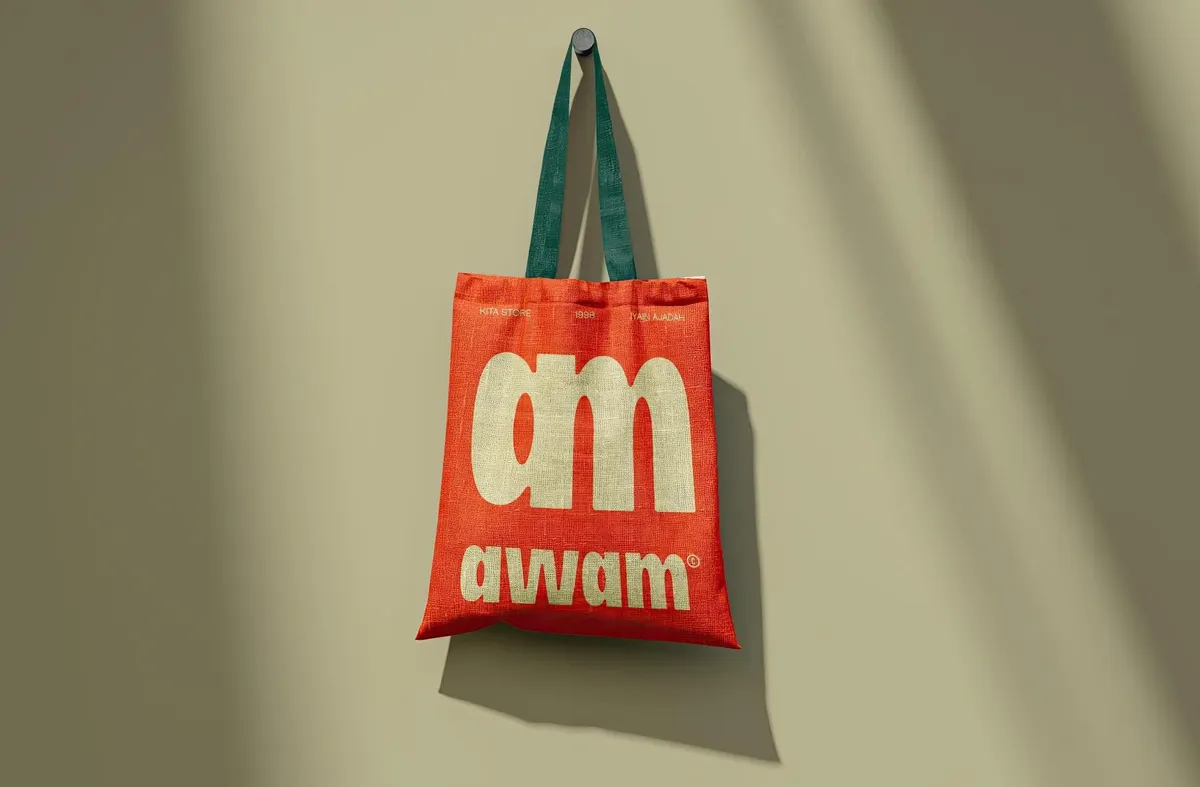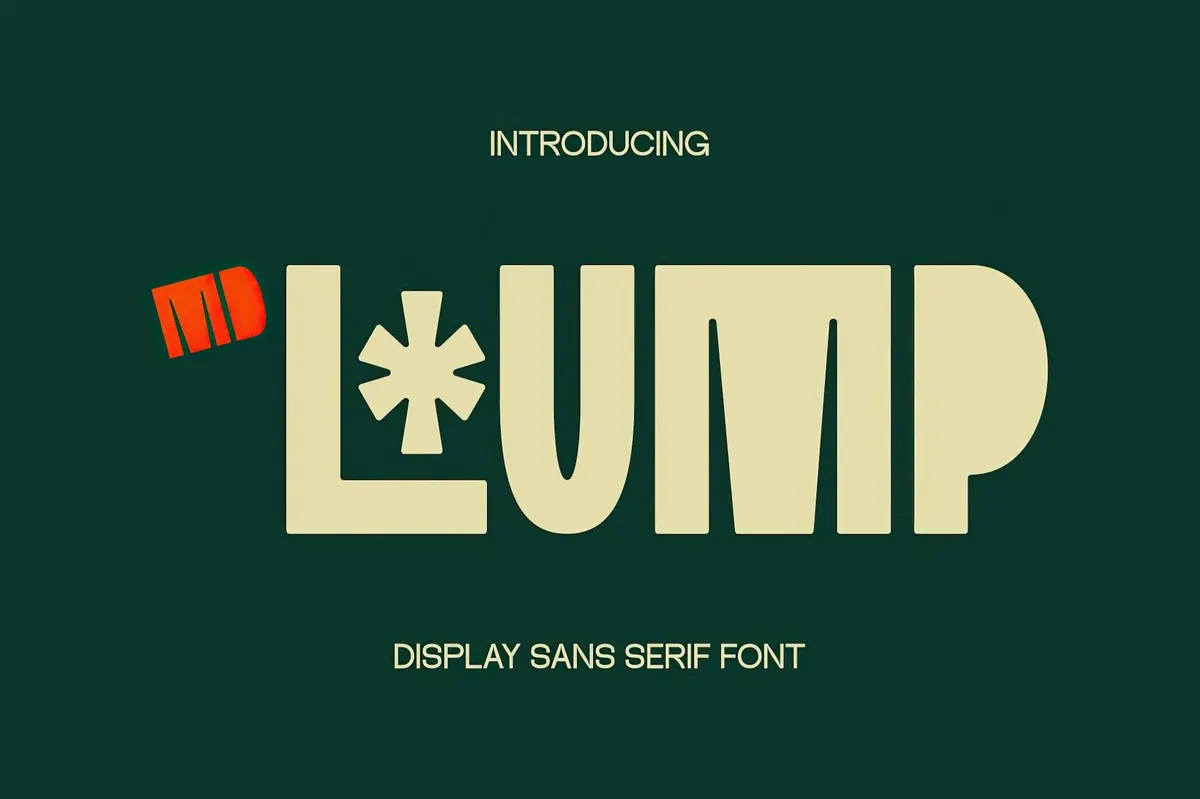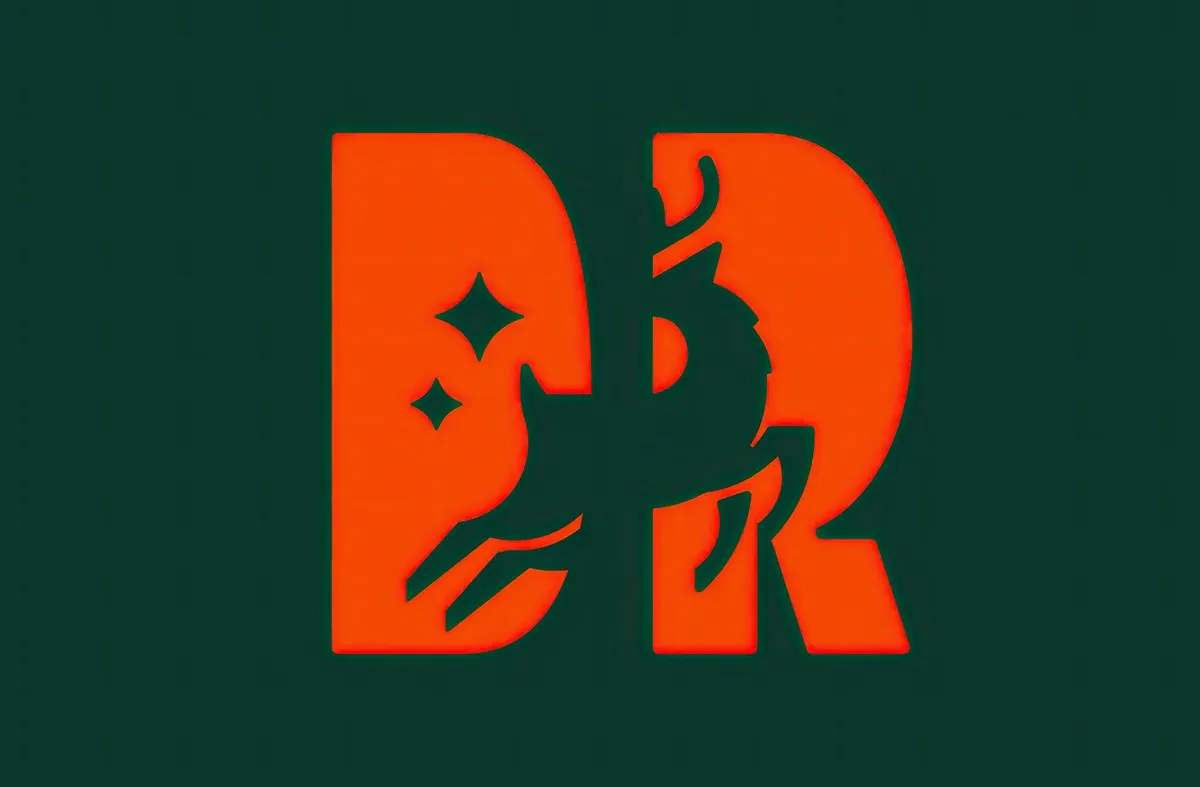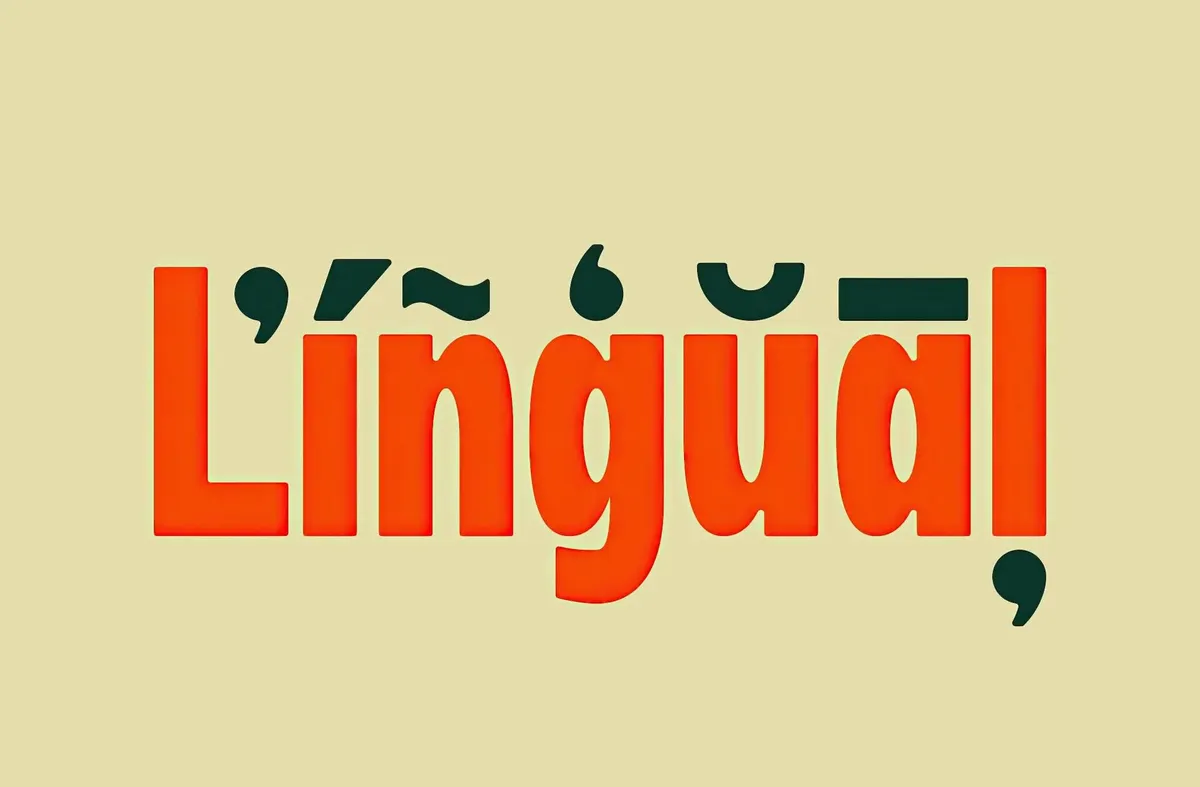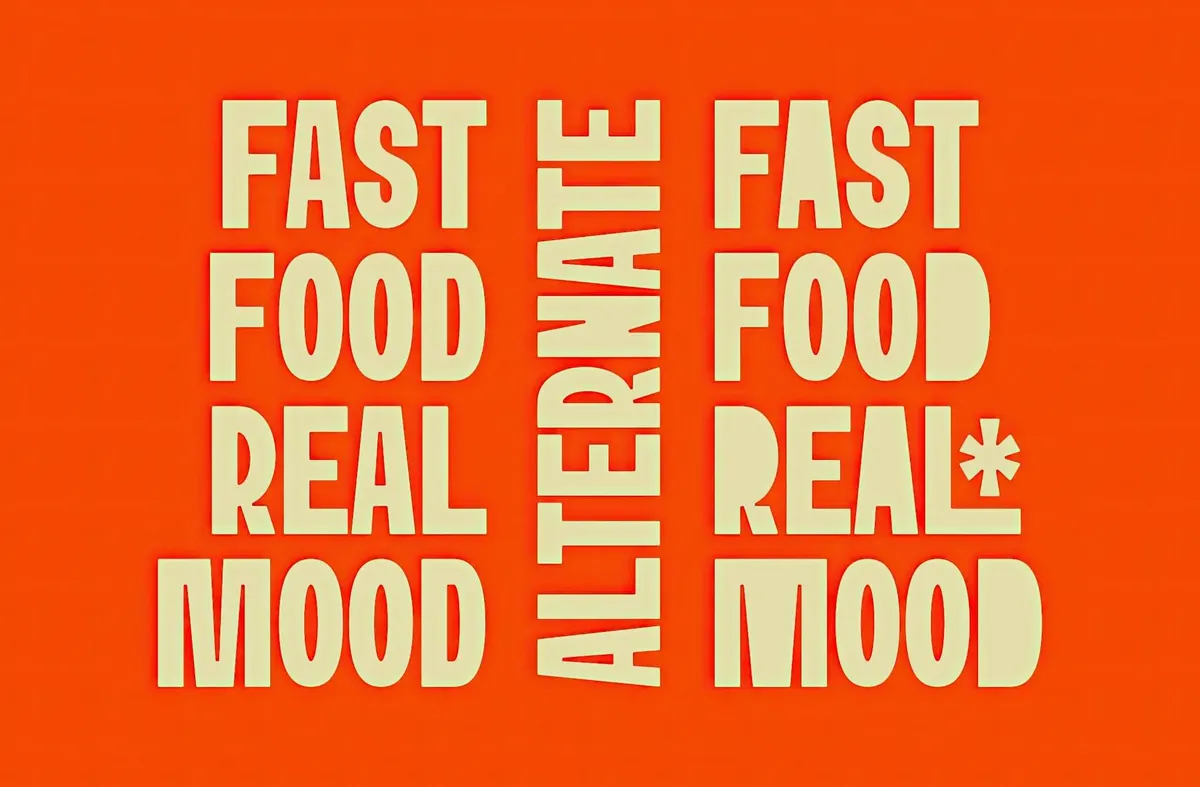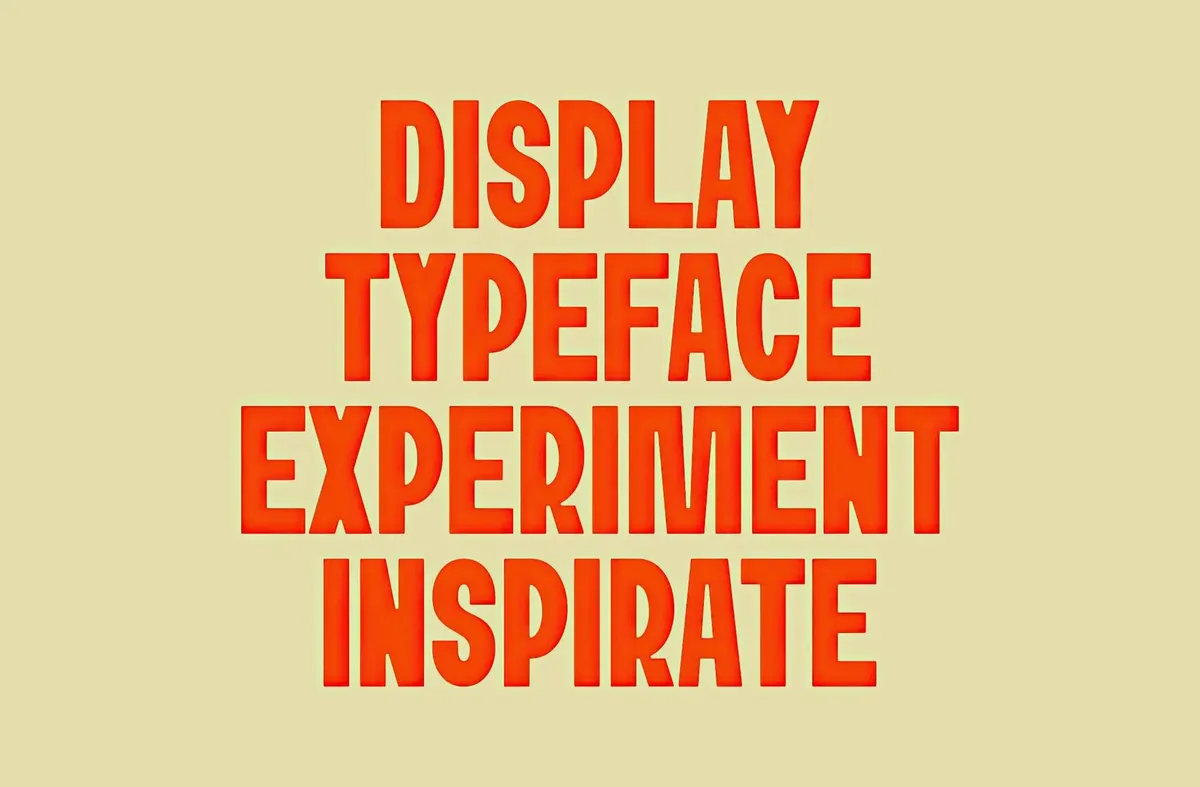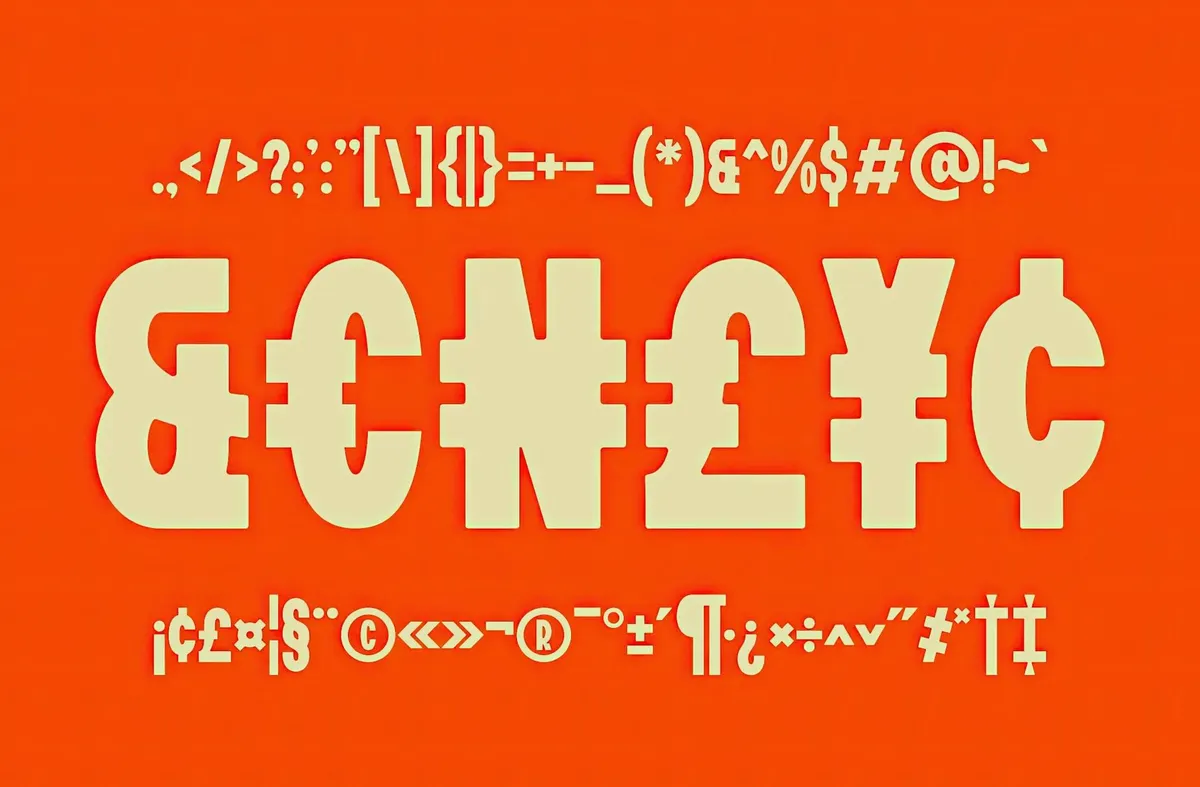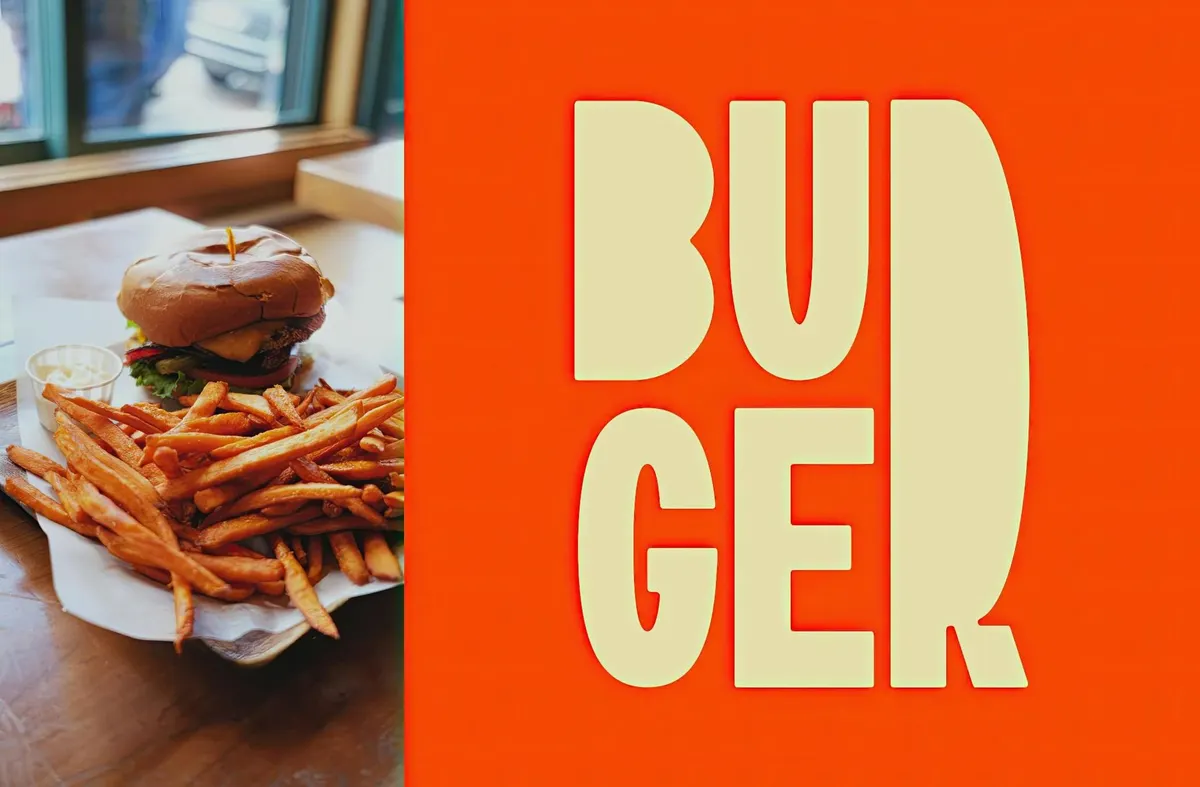
Md Lump Sans Serif Font
MD Lump is a bold, playful display sans-serif with a chunky, irregular style that makes it a go-to pick for headlines, branding, posters, editorial designs, or vintage-inspired logos. It has a quirky, almost retro-modern aesthetic, with exaggerated proportions and soft, rounded edges. MD Lump has a complete character set, plus international characters and alternates. The uneven letterforms and the use of an asterisk as a design element suggest a mid-century influence, while the heavyweight and geometric shapes make it contemporary and versatile.